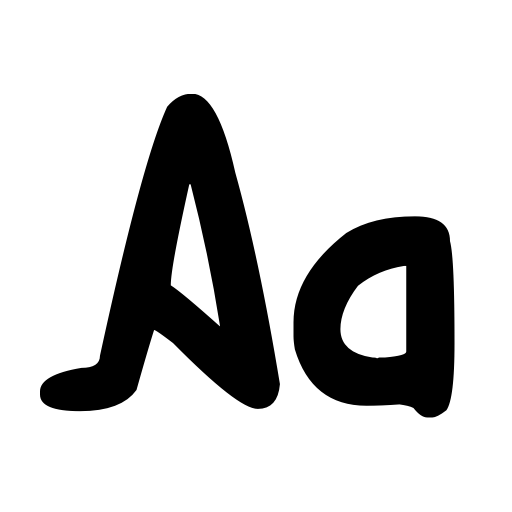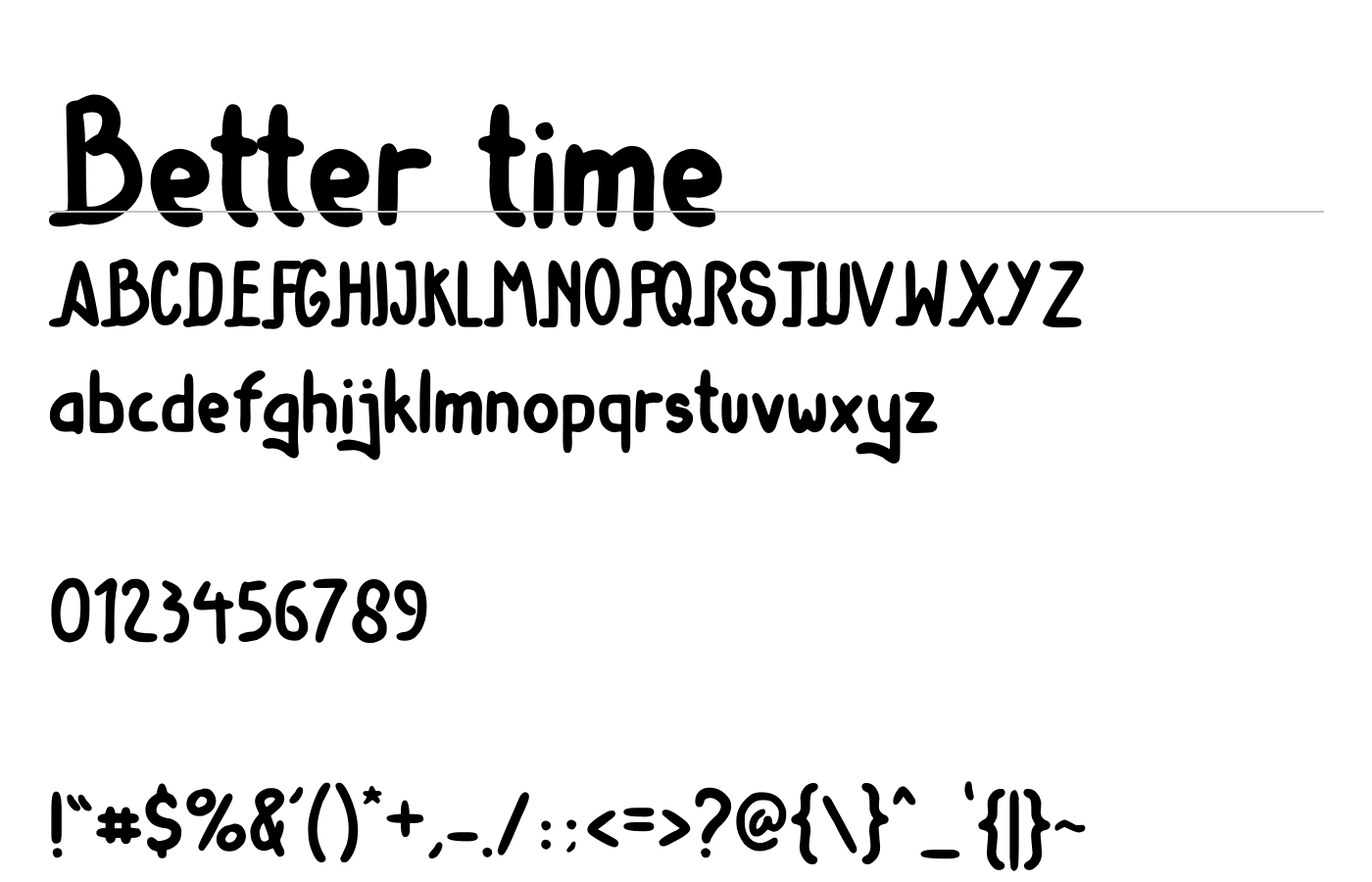
Better Time is a playful, casual handwritten sans serif font with a friendly and approachable feel. Its slightly irregular, rounded letterforms and moderate x-height make it perfect for creative, informal projects where a warm, human touch is needed, such as greeting cards, children’s books, or fun branding. This font works best in display sizes or short text, bringing a relaxed, personal vibe to headlines and logos.
Better time Font
About Better time Font